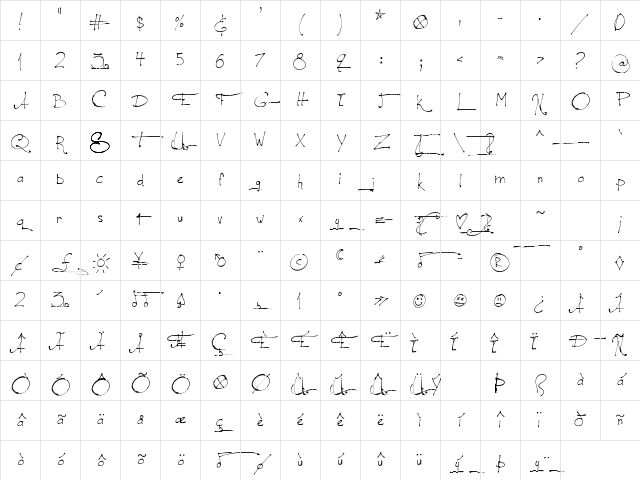
Jellyka - le Grand Saut Textual Regular Free Font
Jellyka - le Grand Saut Textual Regular
Designer: Jellyka Nerevan
Design Context for Jellyka - le Grand Saut Textual
Jellyka - le Grand Saut Textual is a composed and adaptable typeface that performs quietly and consistently across a wide range of design contexts.
Pro Tip: Use Jellyka - le Grand Saut Textual in both headline and body roles to test its range before committing to a single application.